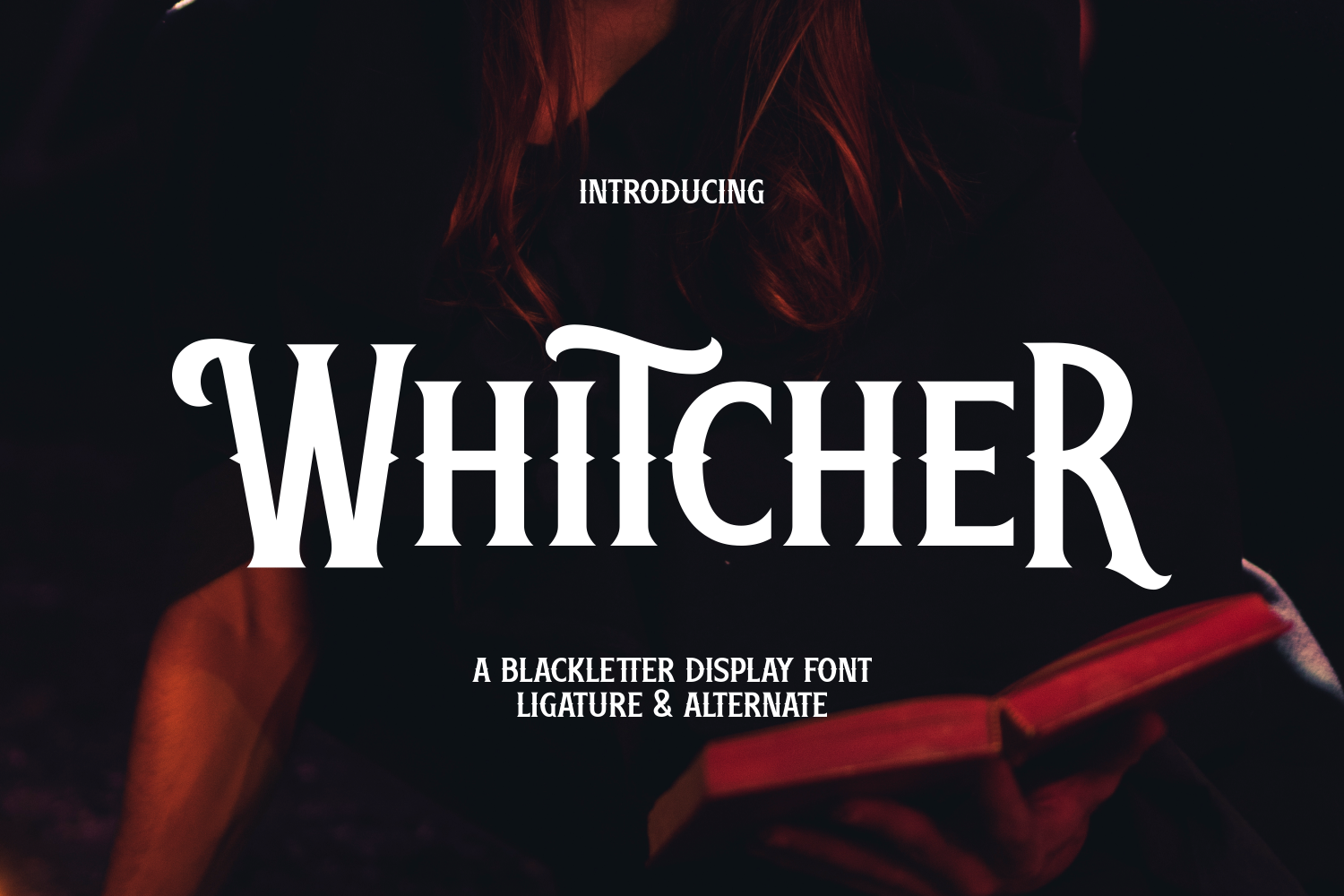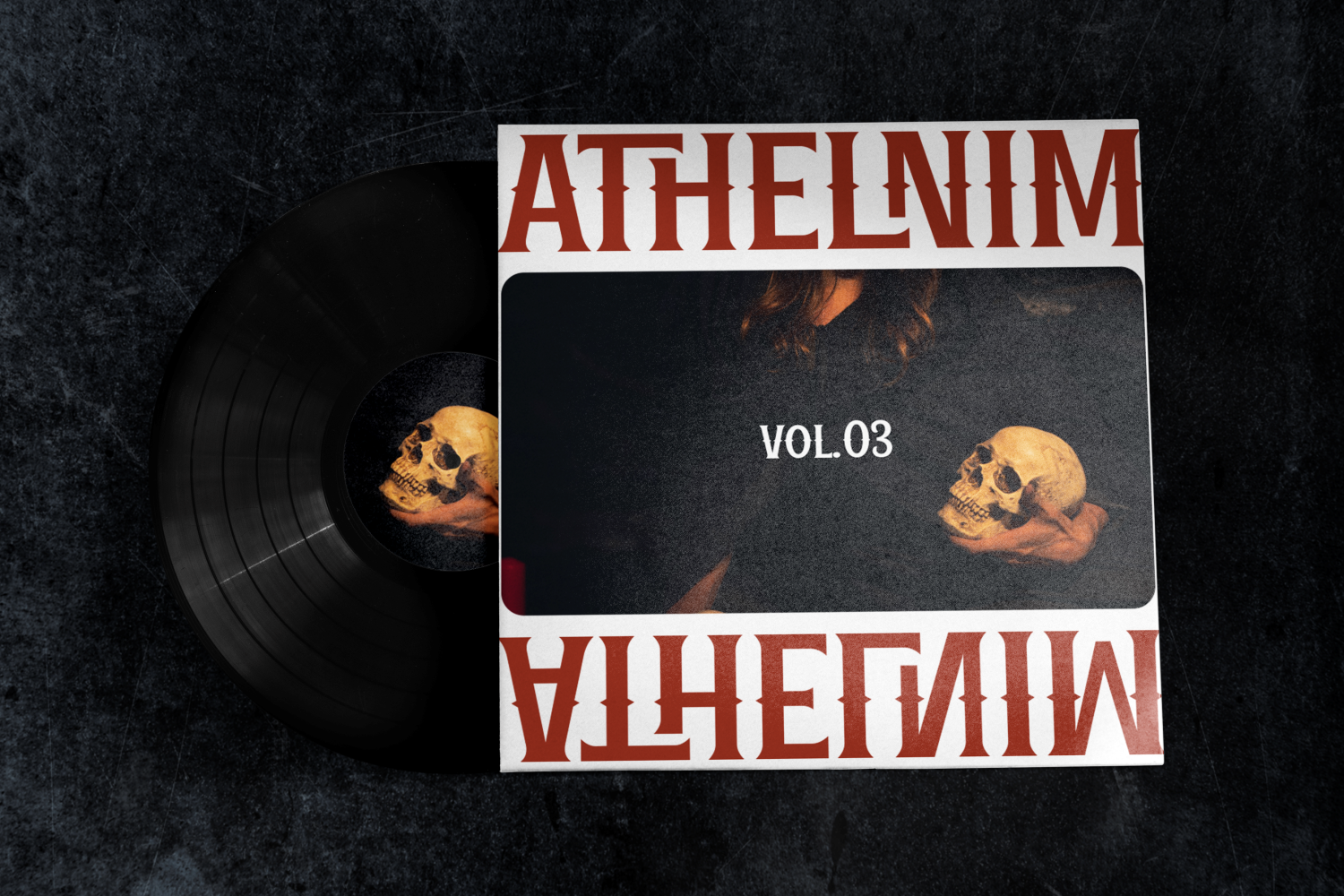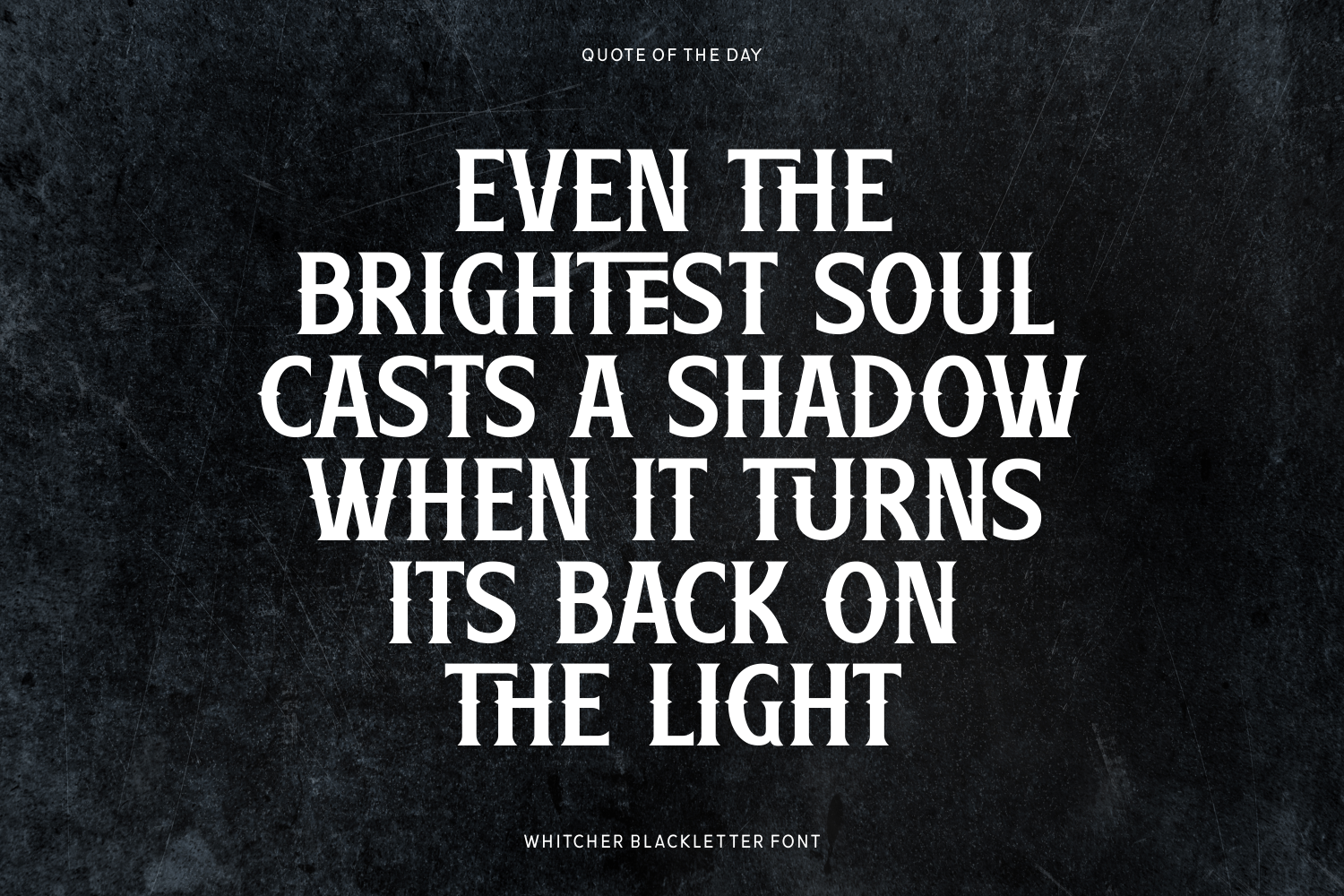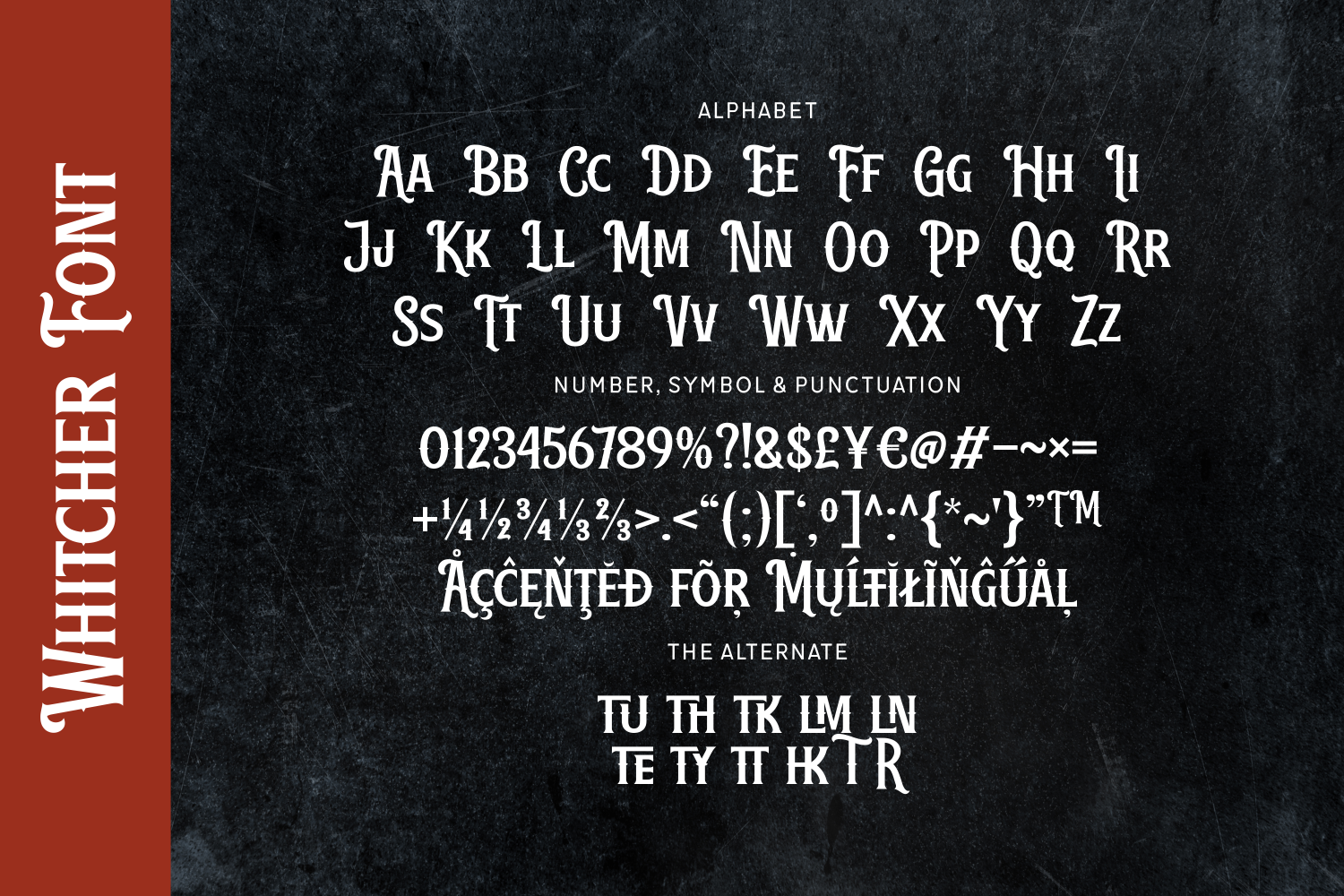
Whitcher is a refined blackletter display font with fantasy-inspired alternates and ligatures. Its sharp serifs and flowing swashes create a mystical atmosphere, perfect for dark fantasy titles, book covers, branding, or anything in need of magical drama and timeless elegance.